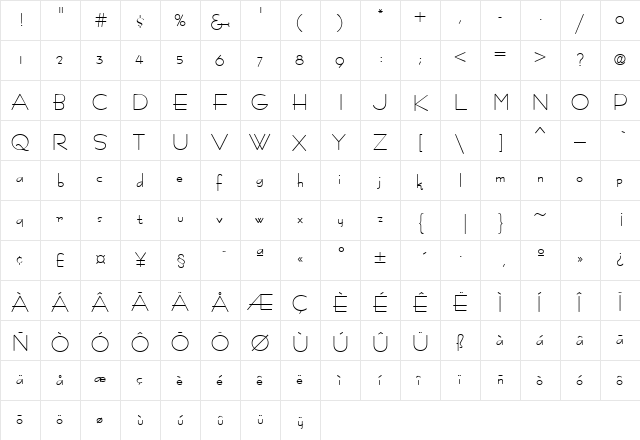
Saint Petersburg Regular
Design Context for Saint Petersburg Typeface
Saint Petersburg offers clean, dependable letterforms without strong stylistic allegiance, making it a practical choice for designers who need flexibility.